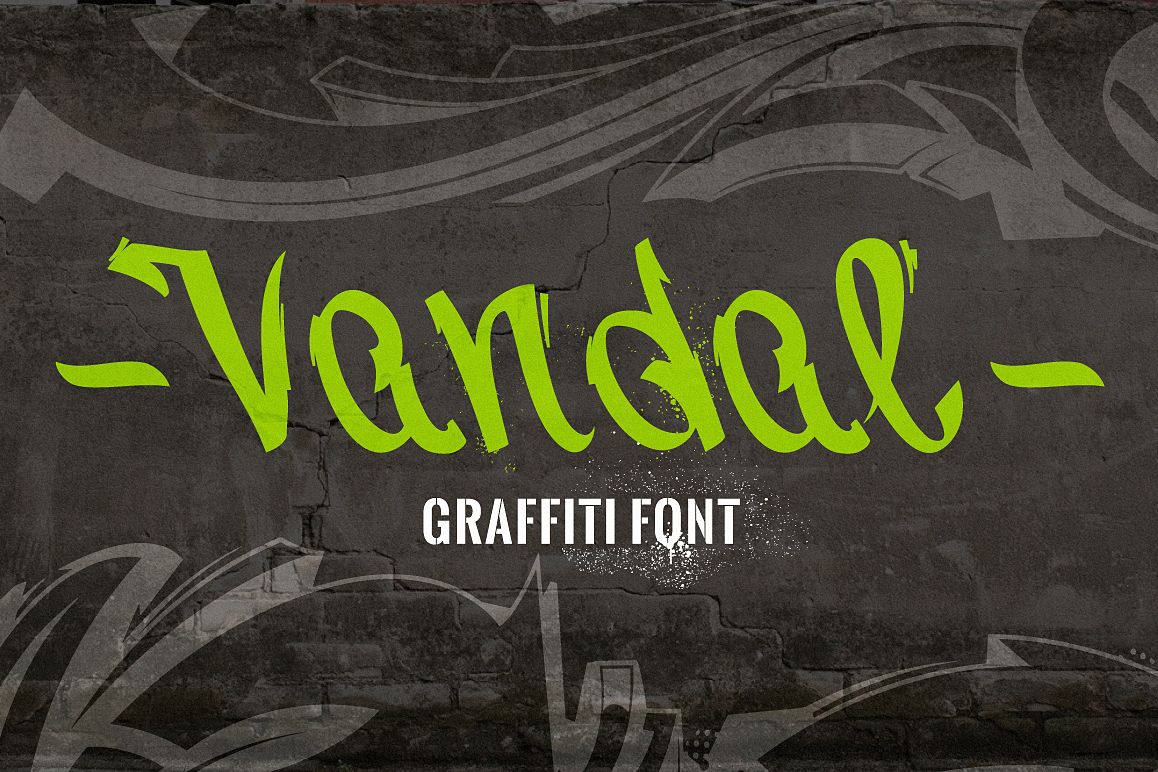
Vandal | Graffiti Font
Vandal is a font inspired by street art, energy of big cities and underground culture. The sloppy, inclined letters of the Vandal font will help you recreate the mood of the street atmosphere of the 80s - 90s. Vandal is perfect for design projects in the style of hip-hop, old school and urban.